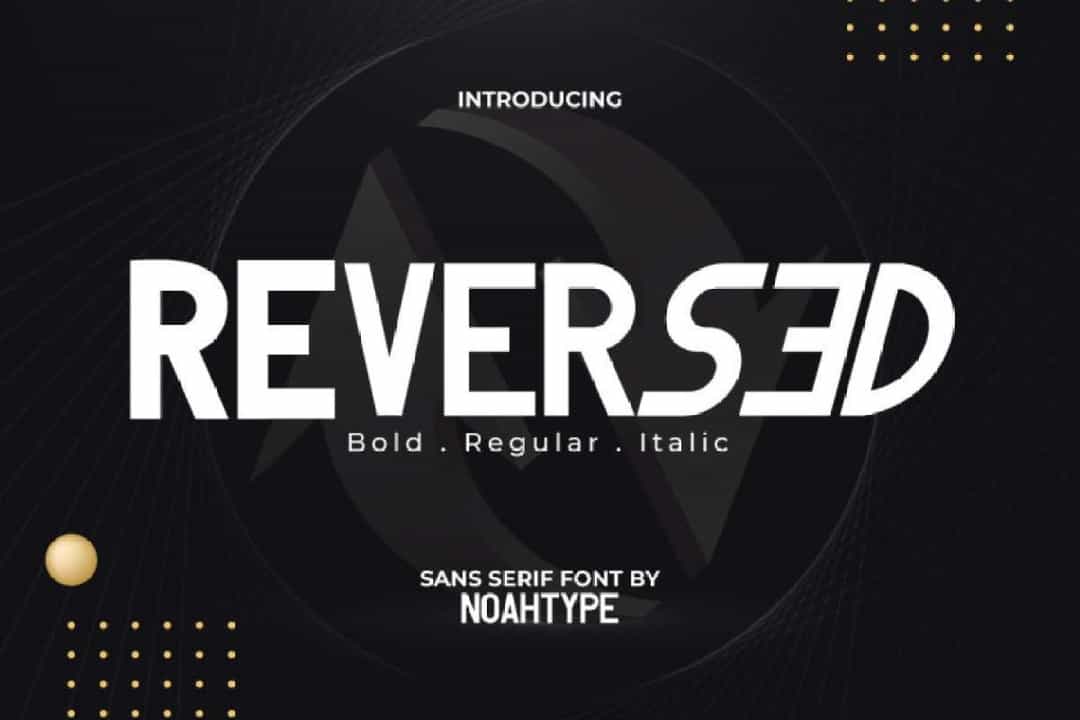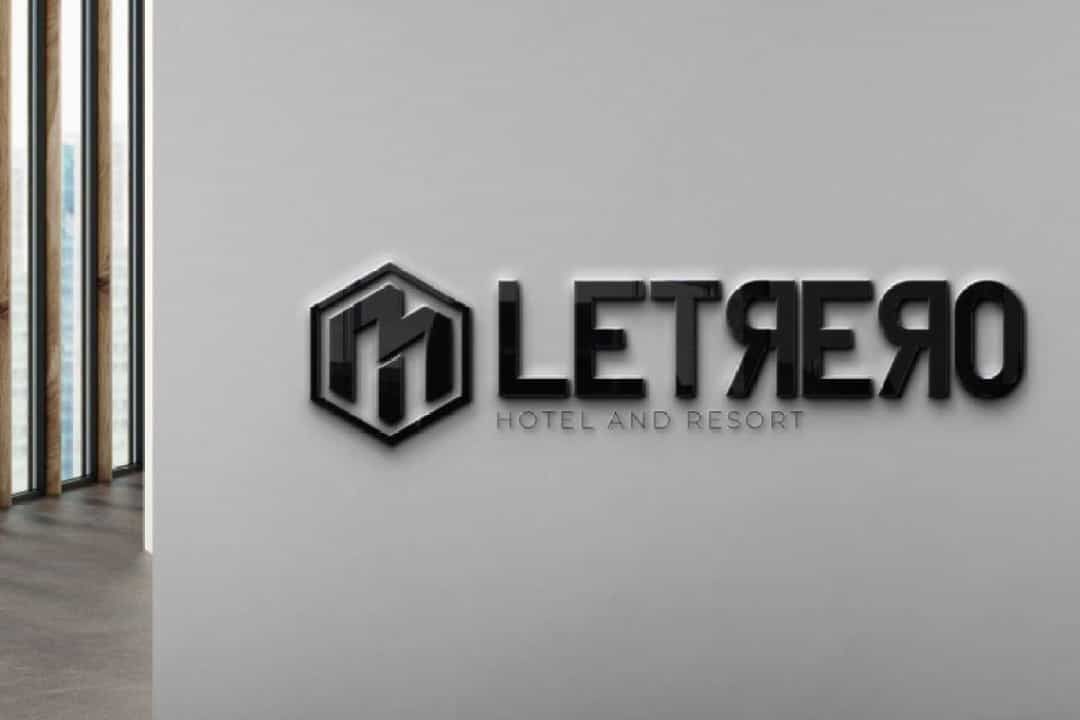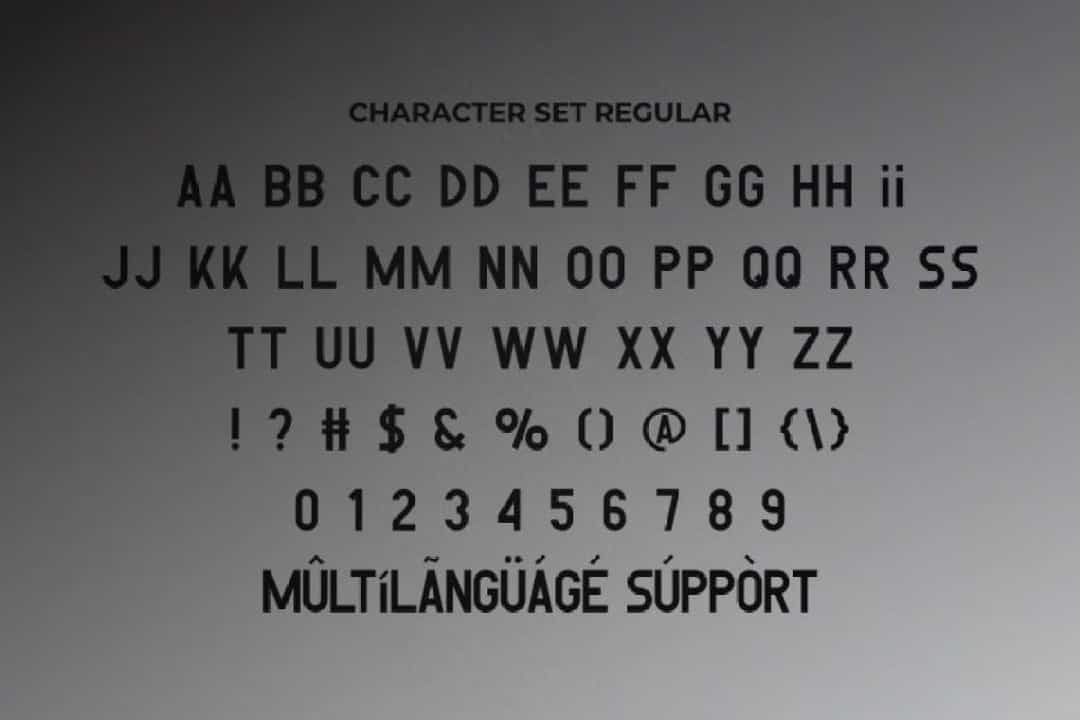
Reversed is a modern and stylish sans serif display font featuring energetic lettering that makes this font easy to read and perfect for use by startups, corporate brands, technology-related industries, gaming platforms, banking services and finance institutions.